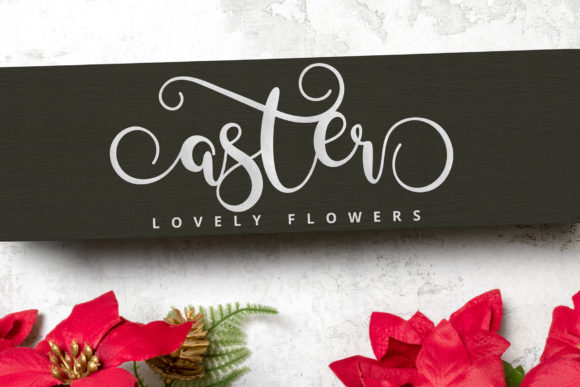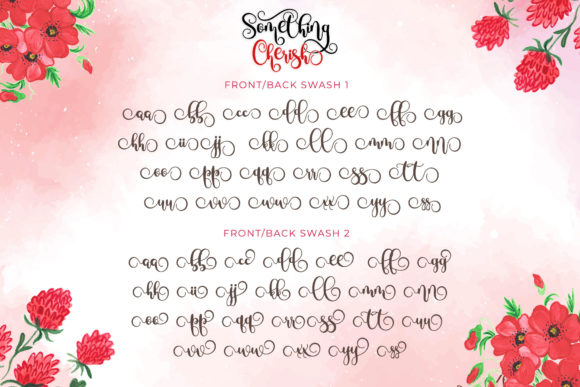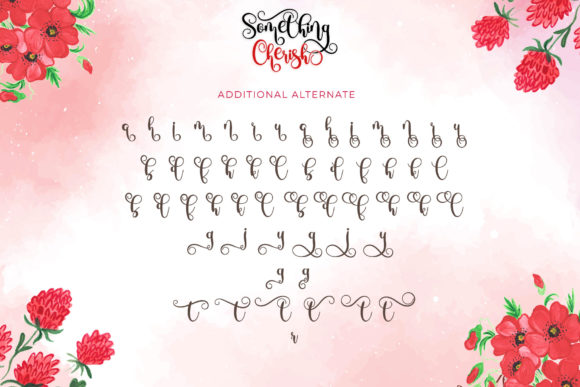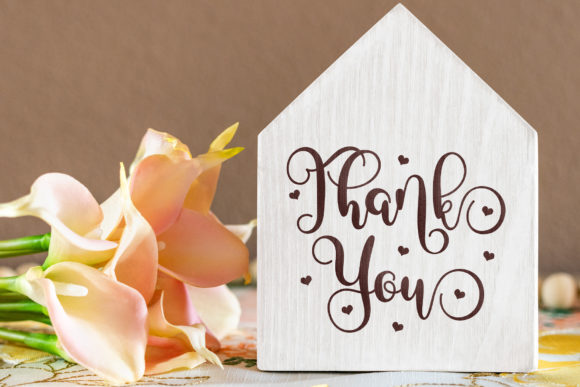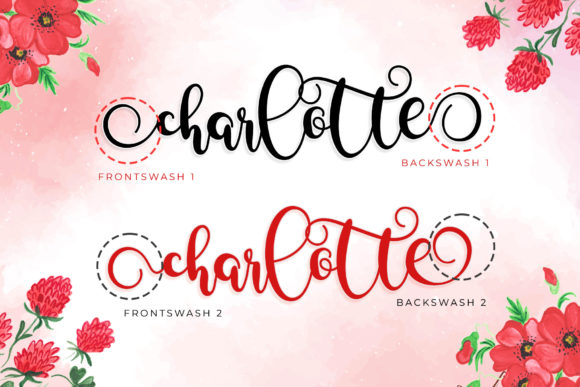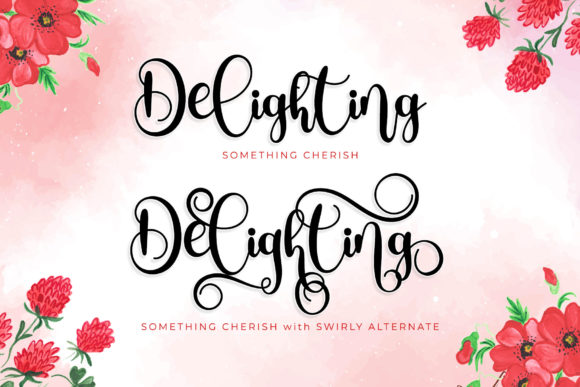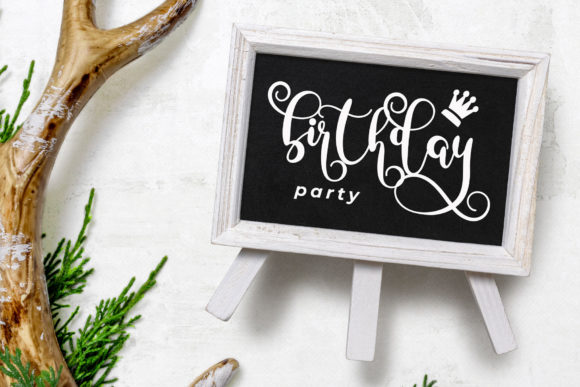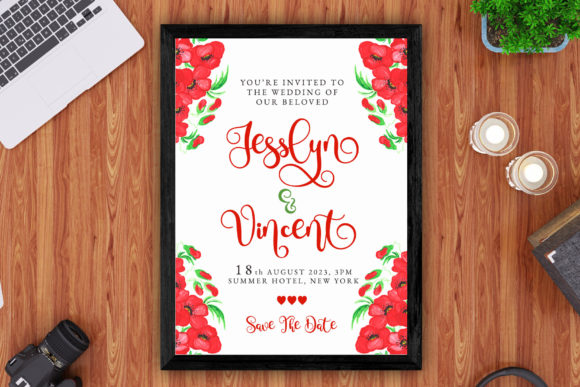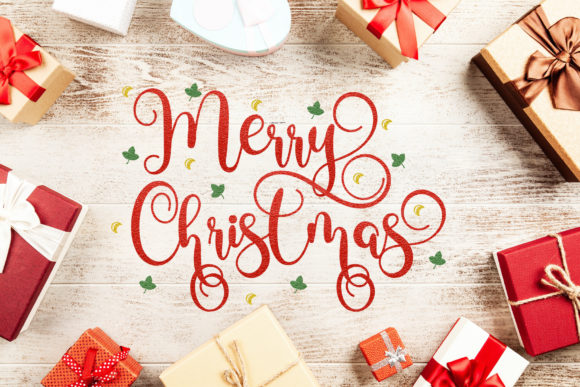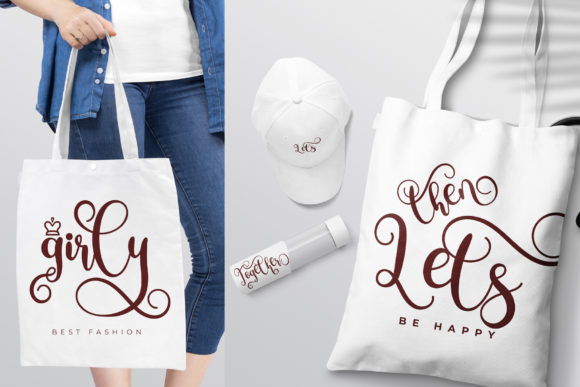
Something Cherish Font
About Something Cherish Font
Something Cherish is a romantic and sweet calligraphy typeface that brings an enchanting and luxurious touch to your design projects. With its dancing characters along the baseline, this font exudes elegance and charm. It is designed to elevate your creations and add a spark of luxury to any design you wish to create. Furthermore, Something Cherish is PUA encoded, enabling you to access its amazing glyphs and ligatures with ease.
The romantic nature of Something Cherish is evident in its graceful and flowing letterforms. Each character is carefully crafted to create a sense of beauty and elegance. The characters dance along the baseline, adding a touch of whimsy and playfulness to your designs. This font creates a captivating and luxurious visual experience, perfect for projects that require a romantic and sophisticated look.
Something Cherish’s calligraphic style enhances the overall aesthetic of your designs. The fluid strokes and delicate details bring a sense of refinement and luxury. It adds a touch of craftsmanship and artistry to your creations, making them visually appealing and memorable.
With Something Cherish’s PUA encoding, you can easily access the amazing glyphs and ligatures. This provides you with a wide range of design options and customization possibilities. You can effortlessly add decorative elements, swashes, and ligatures to create unique and stunning compositions that truly stand out.
By incorporating Something Cherish into your design projects, you infuse them with a sense of romance and luxury. The font’s romantic and sweet calligraphy style creates a captivating and enchanting atmosphere. It adds a touch of elegance and sophistication, making your designs visually stunning and memorable.
In summary, Something Cherish is a romantic and sweet calligraphy typeface that adds a luxurious spark to your design projects. Its dancing characters along the baseline create an enchanting and whimsical effect. With its PUA encoding, you can easily access the amazing glyphs and ligatures for enhanced customization. Embrace the beauty and luxury of Something Cherish and let it elevate your designs, creating visually stunning and captivating creations that leave a lasting impression.